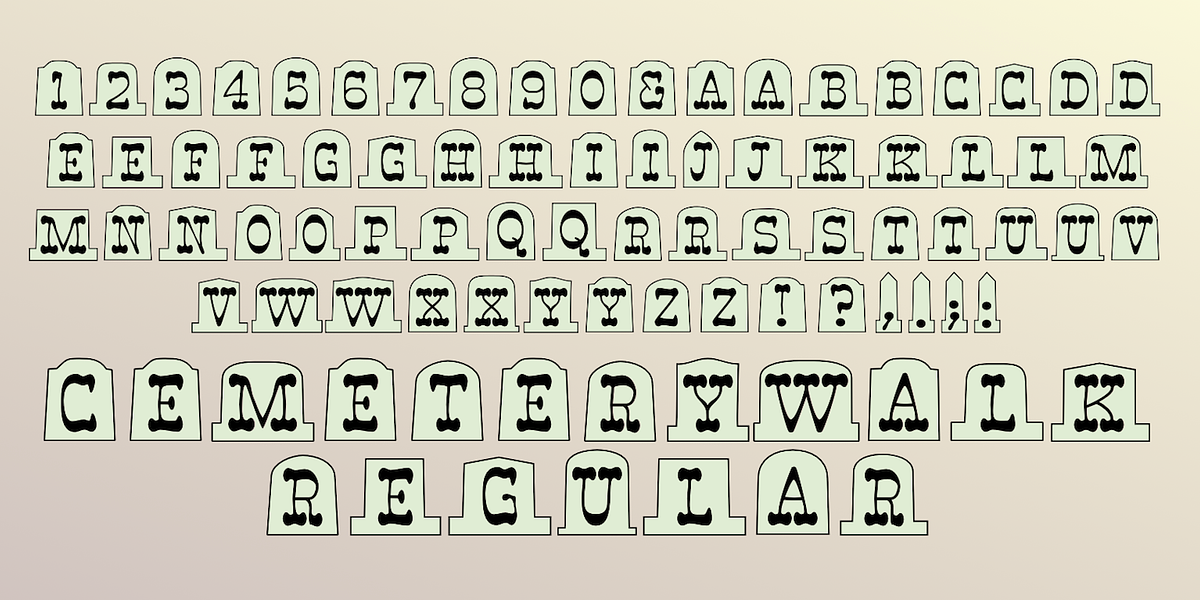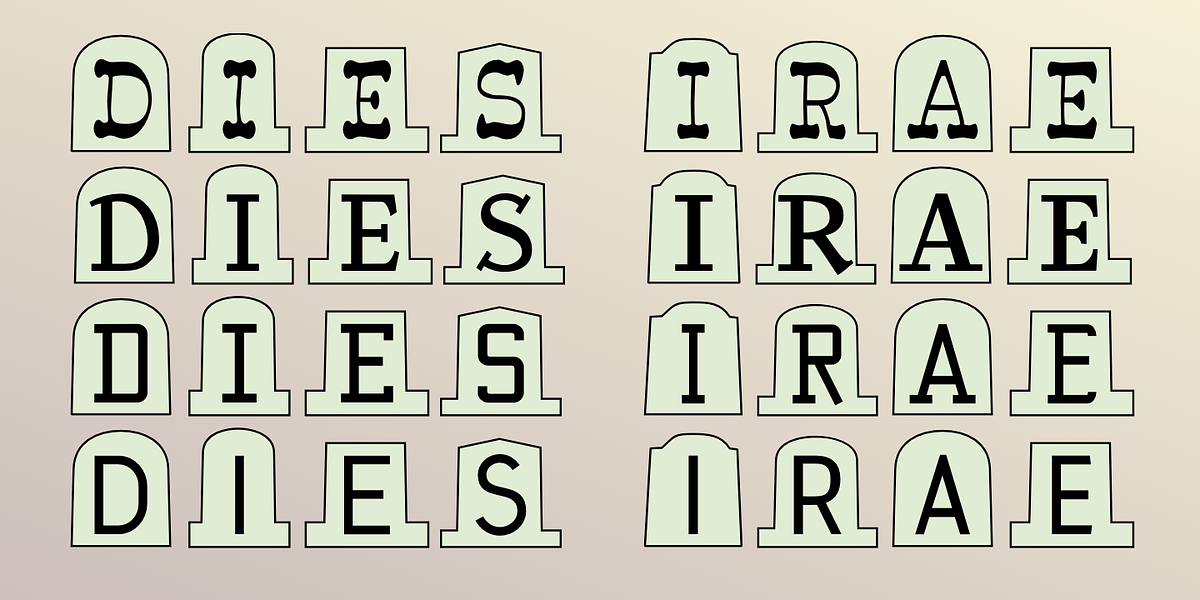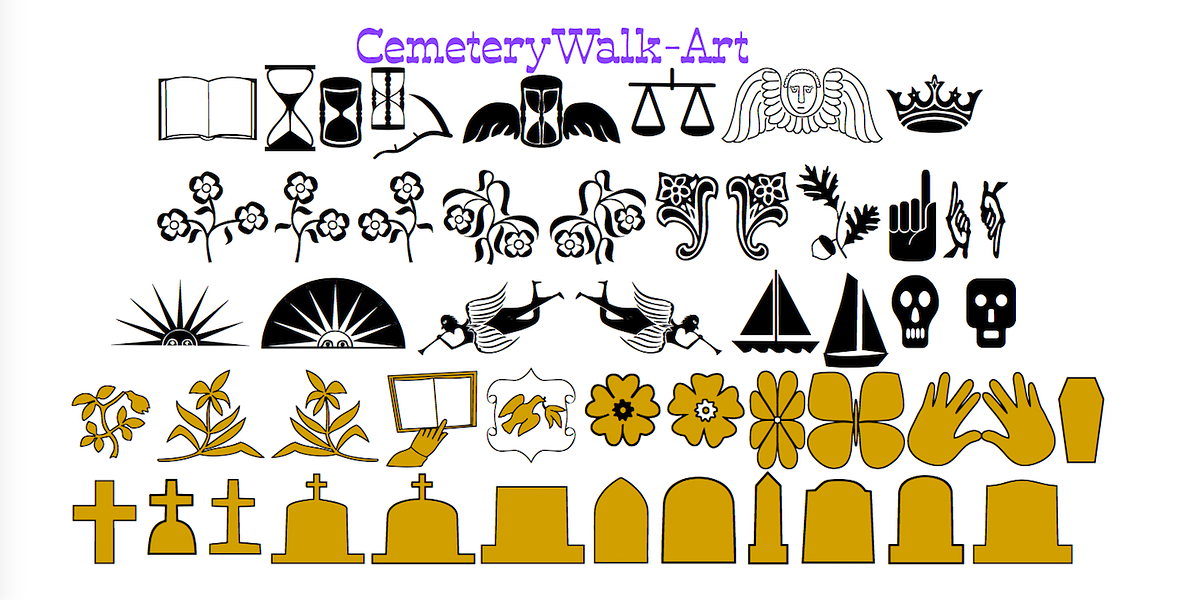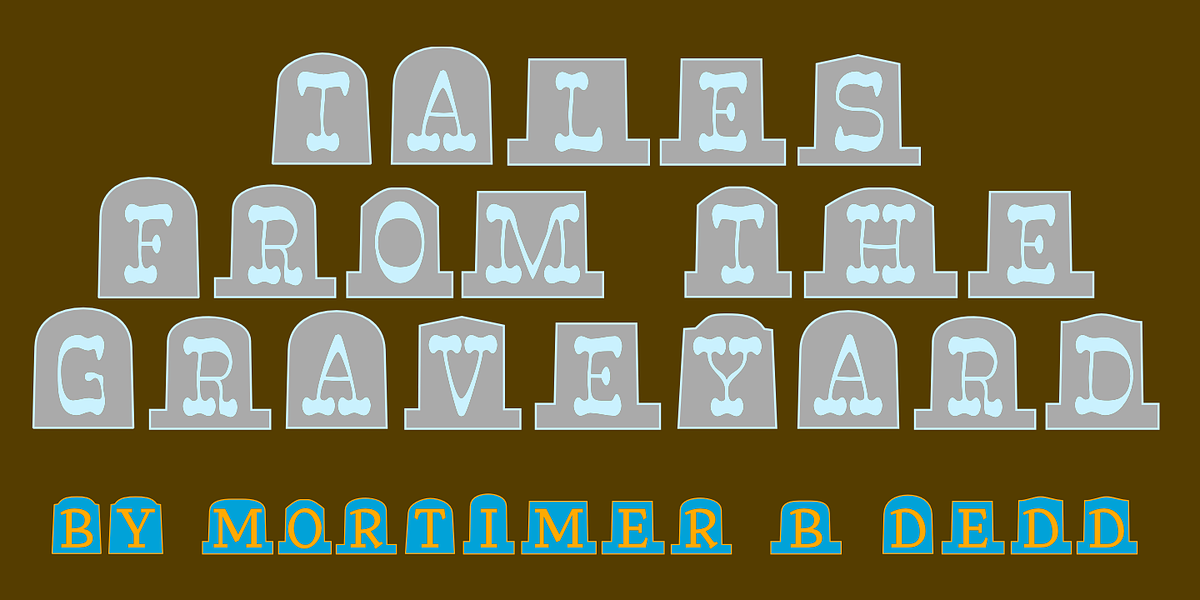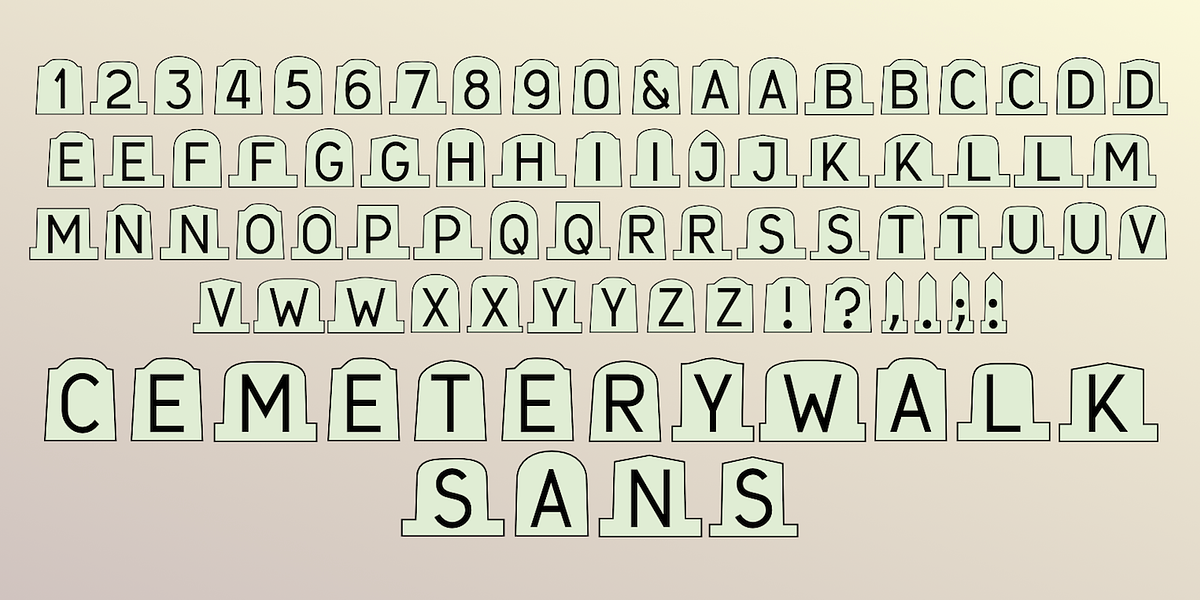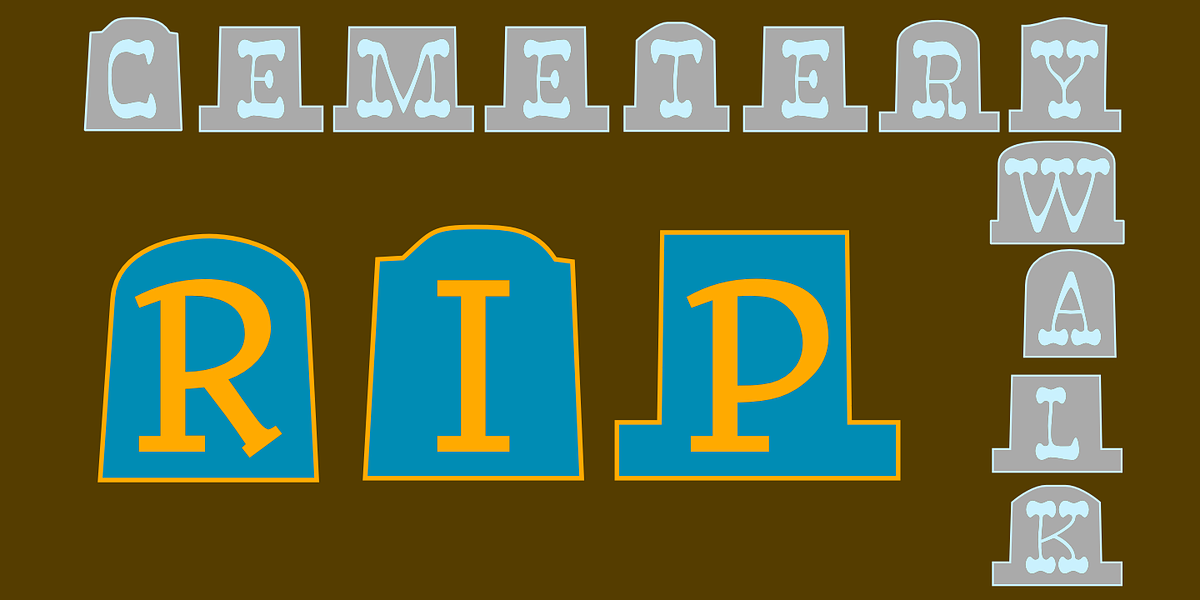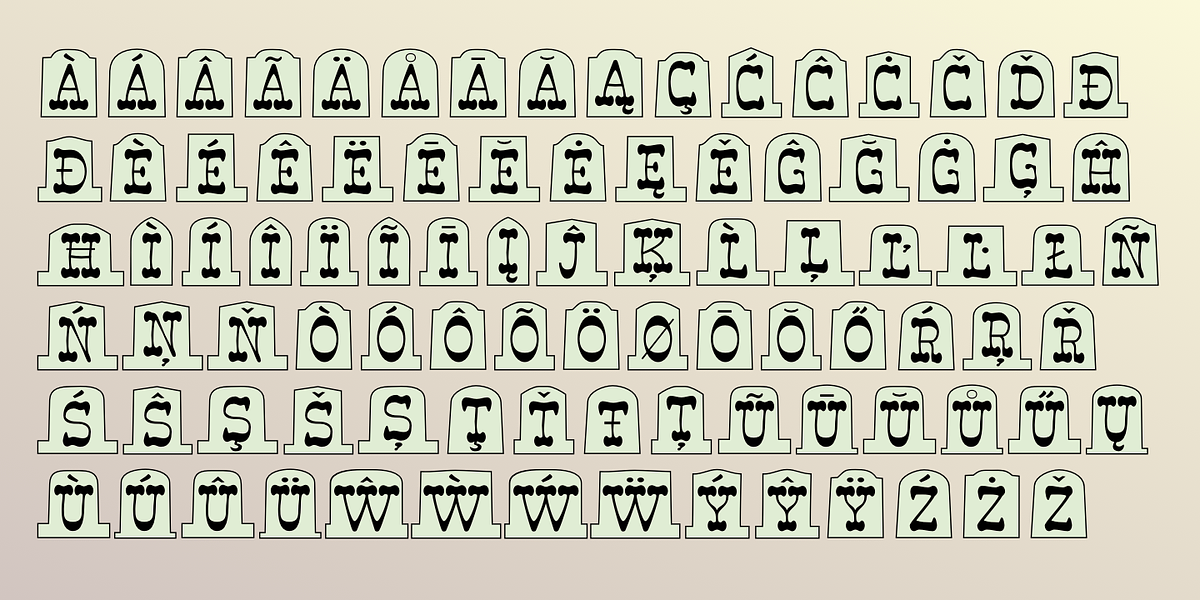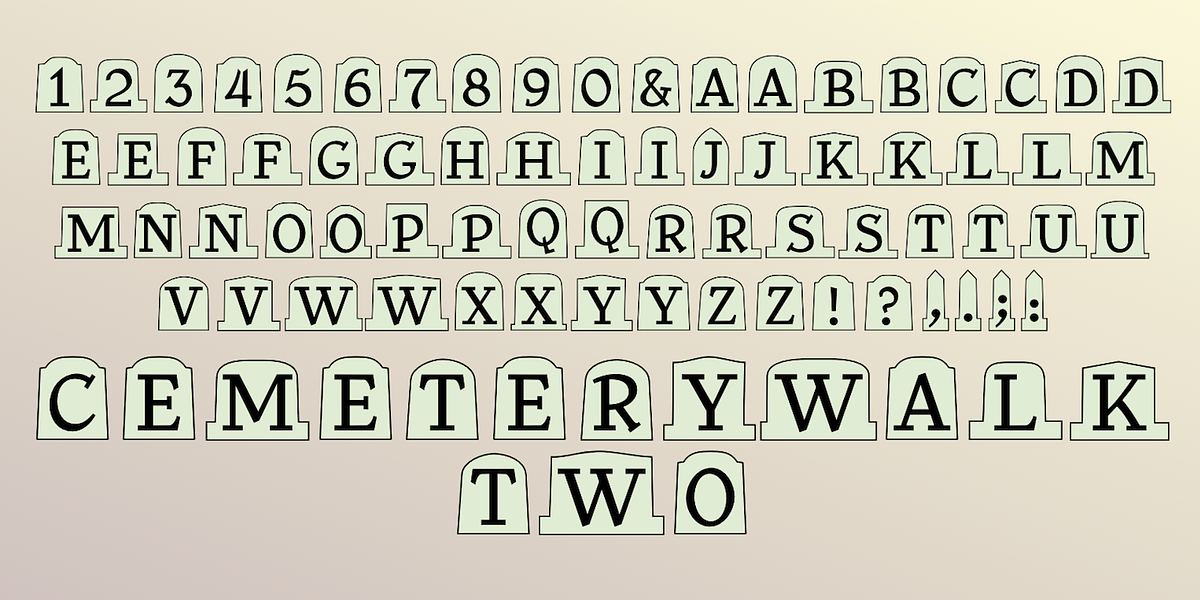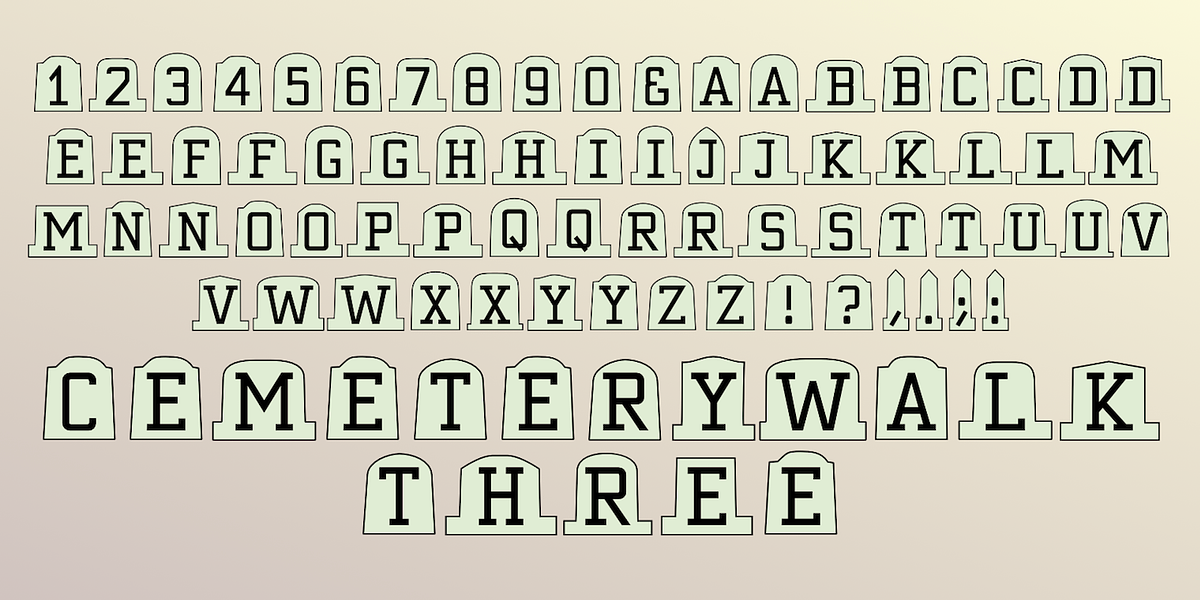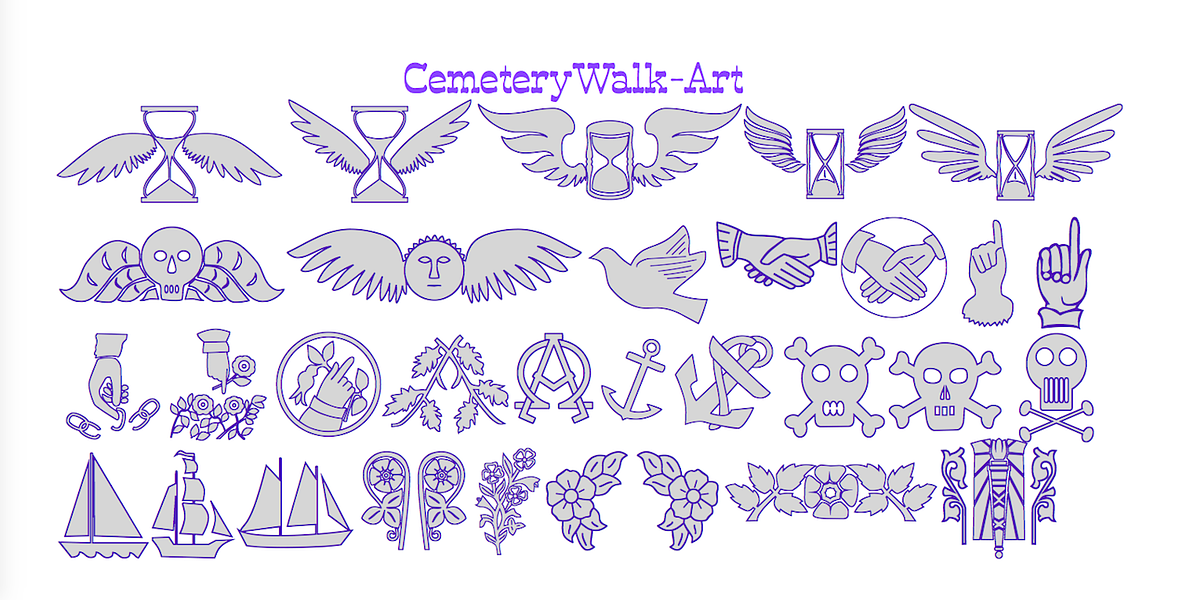
CemeteryWalk
CemeteryWalk is a dingbat font family inspired by cemetery imagery. It features eight styles of caps-only letters designed to resemble inscriptions on gravestones. Two styles per letter set offer black letters on white backgrounds and inverted white letters on black backgrounds. The bold style can be layered beneath the plain style for added texture. An additional picture font within the family includes various symbols commonly found on tombstones.